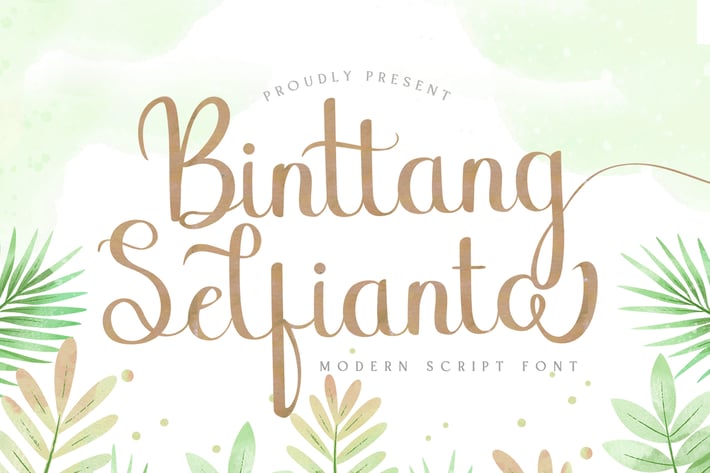
Binttang Selfianto - Script Font
Introducing Binttang Selfianto - Modern Script Font
Binttang Selfianto is a Script Font with Calligraphy Style. Whether you’re looking for fonts for calligraphy scripts for DIY projects, Styll Love will turn any creative idea into a true piece of art! This font is PUA encoded which means you can access all of the cute glyphs with ease! It also features a wealth of special features including stylistic alternate glyphs and ligatures.
- Stylistic Alternates
Binttang Selfianto is a Script Font with Calligraphy Style. Whether you’re looking for fonts for calligraphy scripts for DIY projects, Styll Love will turn any creative idea into a true piece of art! This font is PUA encoded which means you can access all of the cute glyphs with ease! It also features a wealth of special features including stylistic alternate glyphs and ligatures.
- Stylistic Alternates